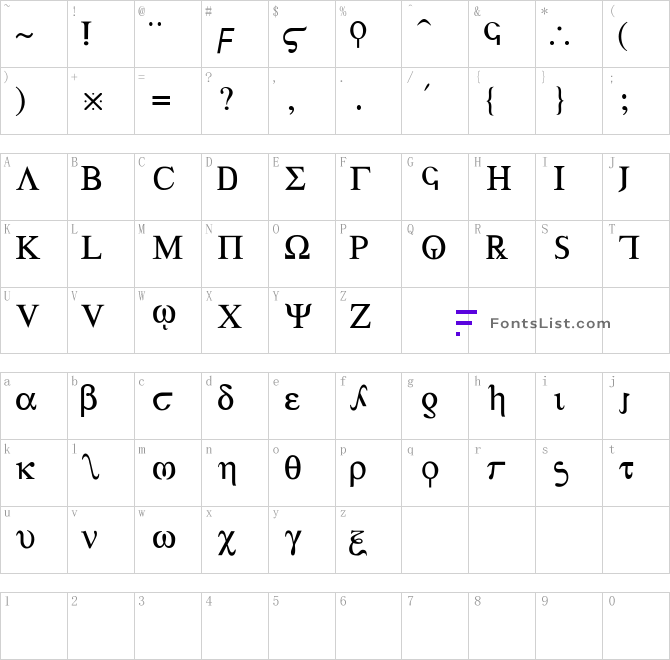
- Font Name:Achilles
Achilles.ttf is a very beautiful artistic font, Achilles.ttf is widely used in the design and printing of various books and pictures,Achilles.ttf has a strong visual impact,Achilles.ttf is a commonly used font in newspapers, magazines and books, and is used in posters, e-commerce Poster design, store design, logo design, font design and other fields.Achilles.